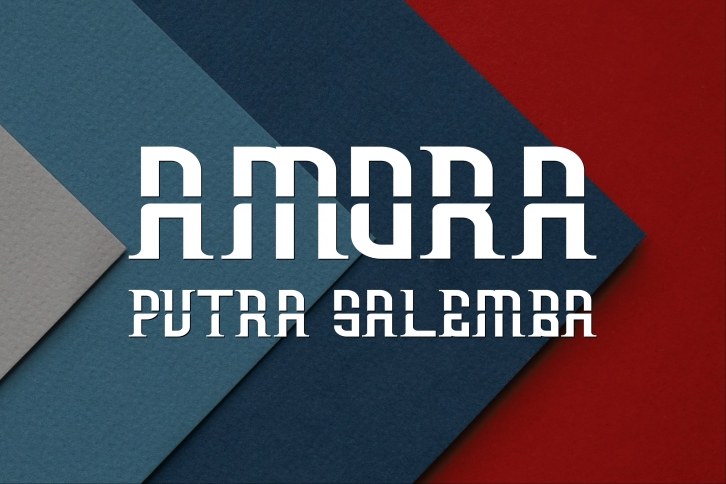
PutraSalemba is a beautiful font that was designed by logologo. It's a great choice for designers and creatives who need such a font. It was released on September 2, 2022 and the file size is 9.92 MB. PutraSalemba may give a more youthful, expressive and casual look to your project. It is a very beautiful, refined, elegant, and high-quality font.